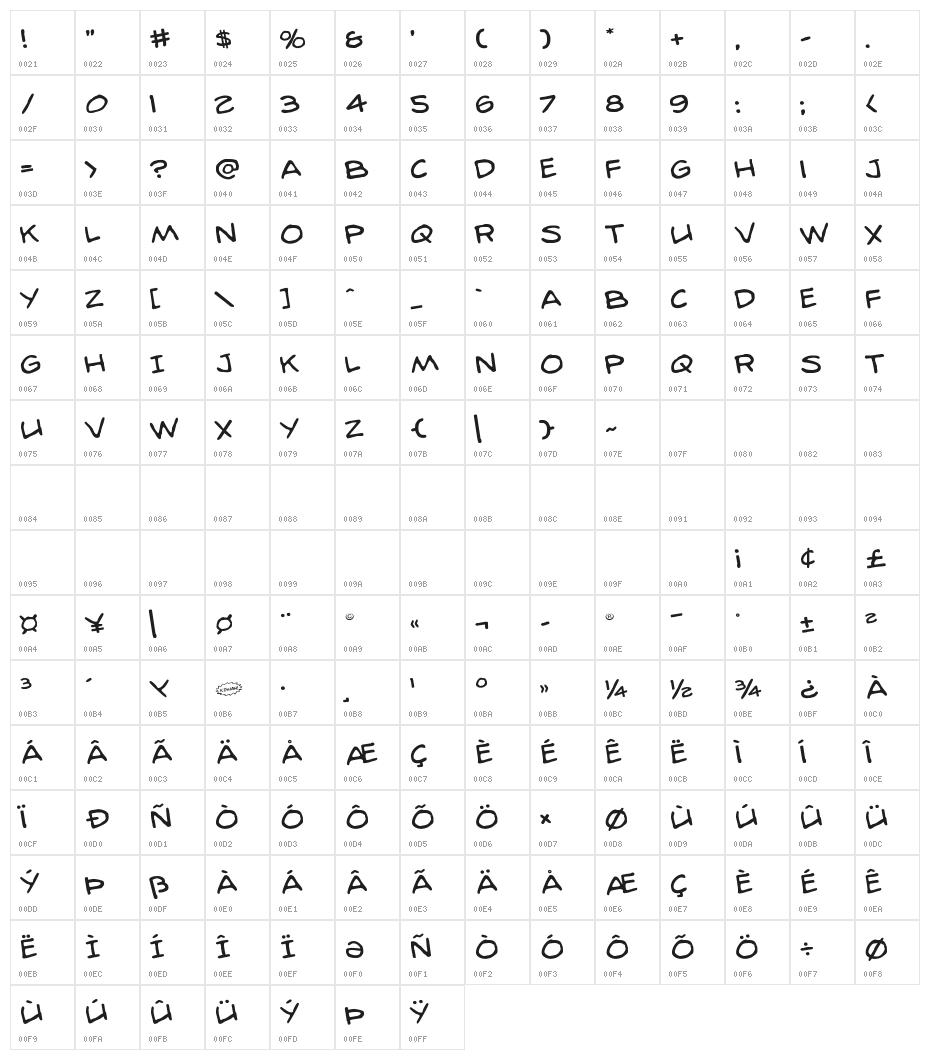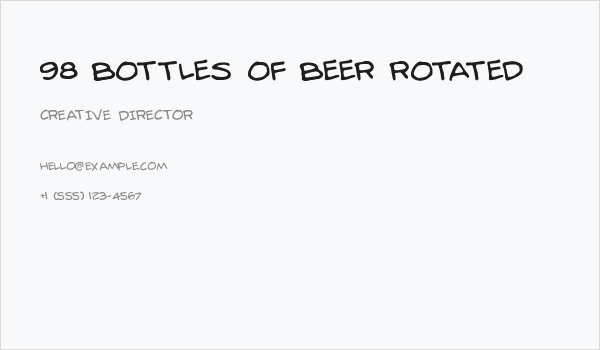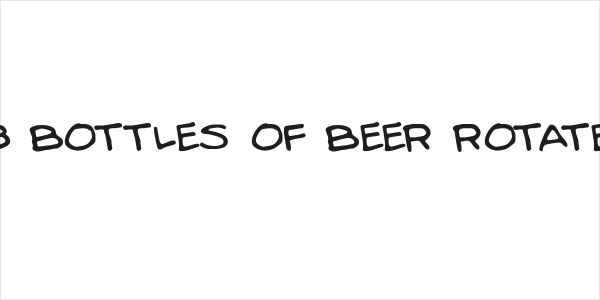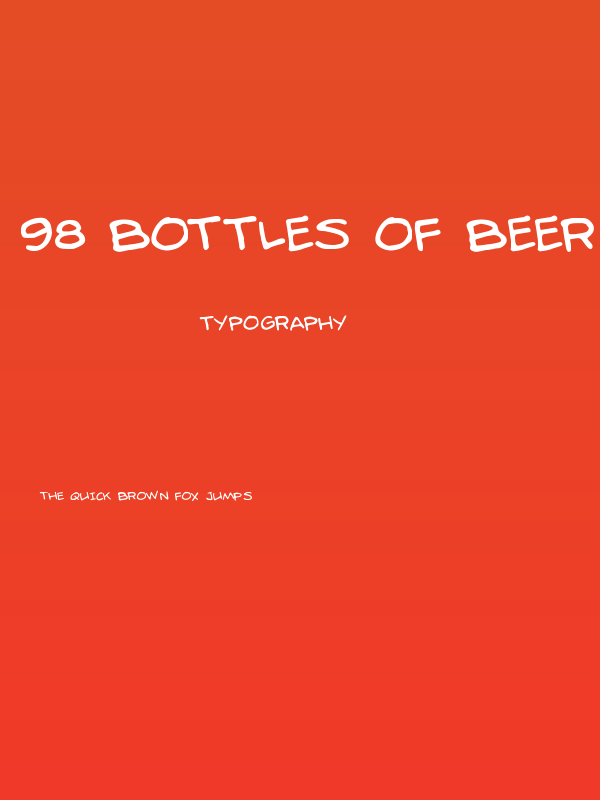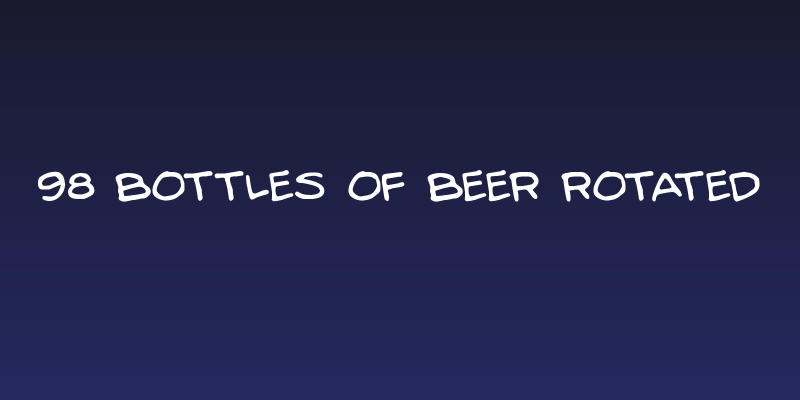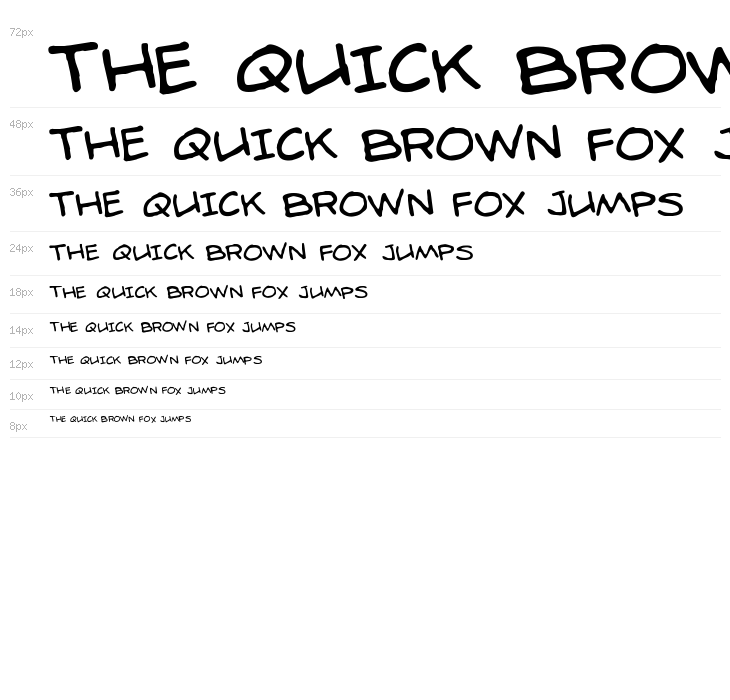
98 Bottles of Beer Rotated Font
98 Bottles of Beer Rotated Description
This font features a playful, handwritten style with a casual and informal appearance. The letters are slightly irregular, giving them a dynamic and lively feel. The strokes are bold and rounded, contributing to a friendly and approachable look. The characters are well-spaced, ensuring readability while maintaining a whimsical charm. This font includes a full set of uppercase and lowercase letters, numbers, and a variety of special characters, making it versatile for various design needs. Its unique style is perfect for projects that require a personal touch or a fun, engaging aesthetic.
| Proposed Projects | Ideal for children's books, greeting cards, playful branding, and informal invitations. |